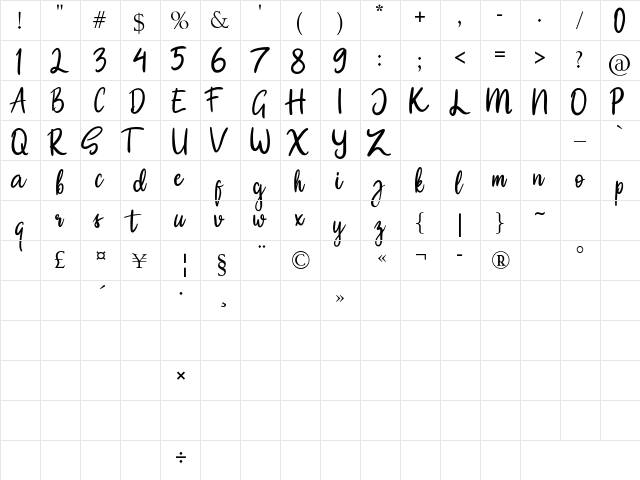
Sweet Cookie Regular
| Foundry | Moonstone Co |
| Designer | Moonstone Co |
Design Context for Sweet Cookie Typeface
Sweet Cookie takes a measured approach to typography — its balanced proportions and neutral character make it a reliable workhorse for both digital and print work.